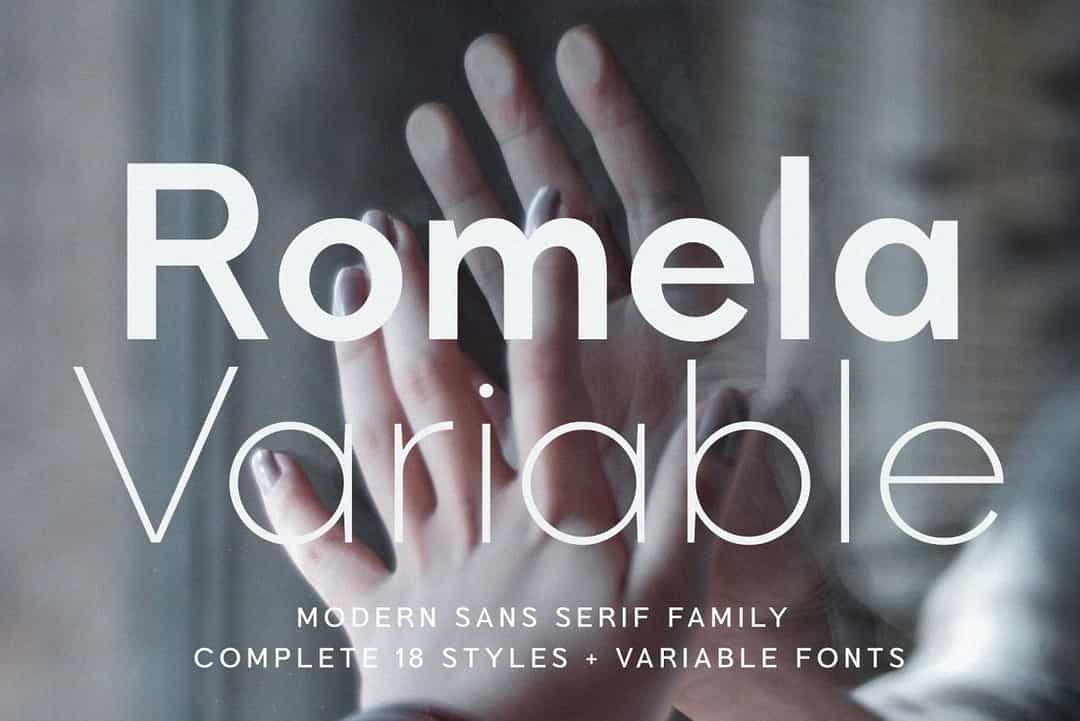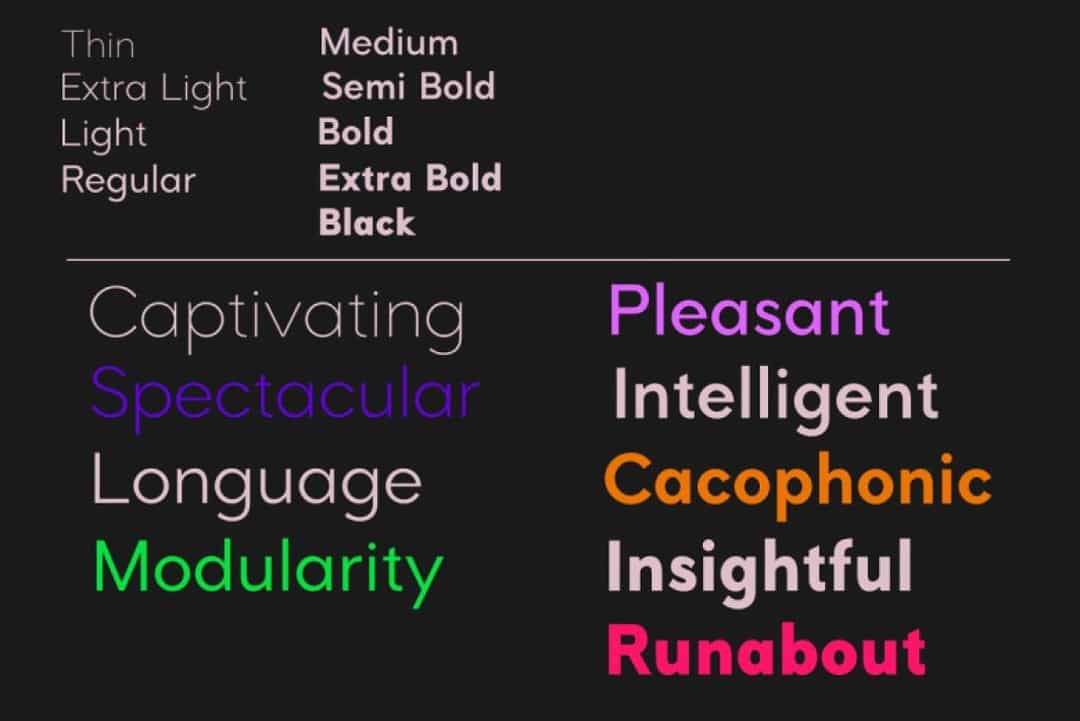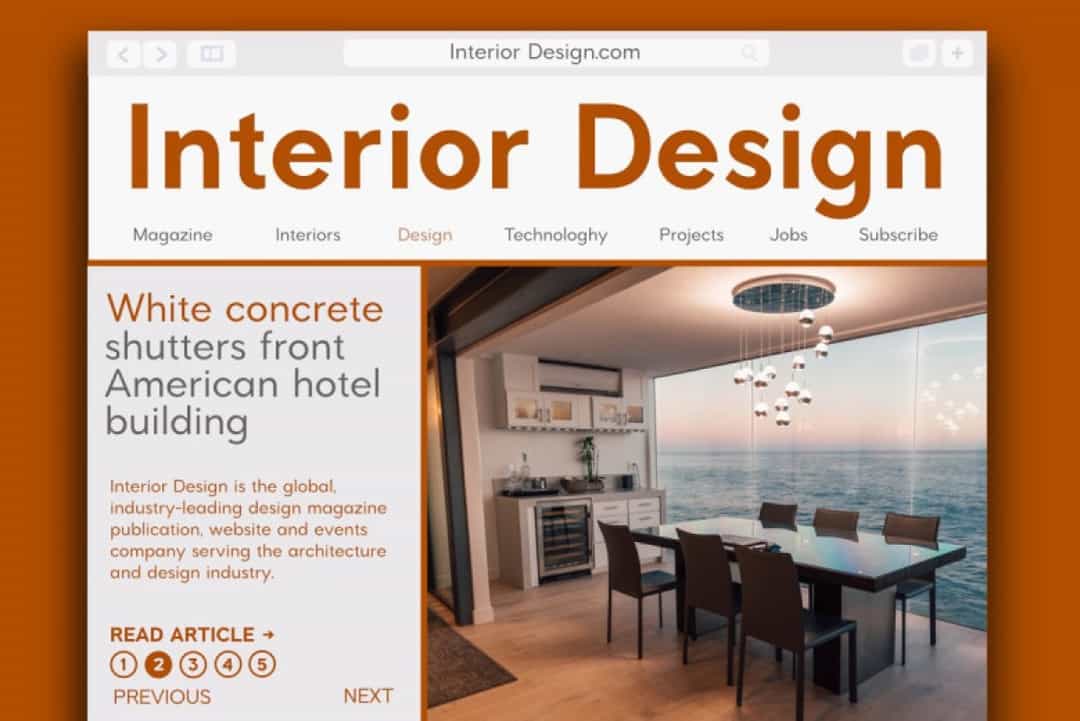
Romela is an geometric Sans Serif font family with 9 weights spanning from light to Heavy and slopes that match up. Inspired by 70s geometric style mixed with modern design with softened curves. Simple, warm, elegant, quirky but also flexible and easy to understand – Romela stands out among her peers!